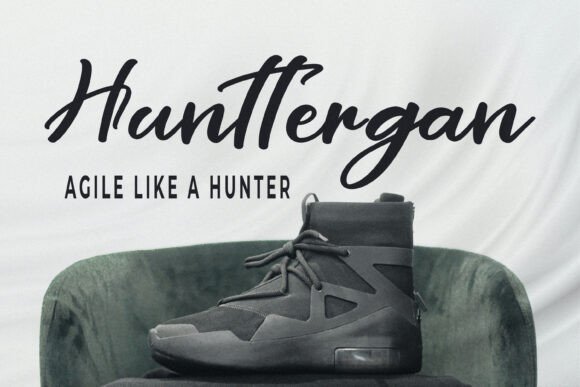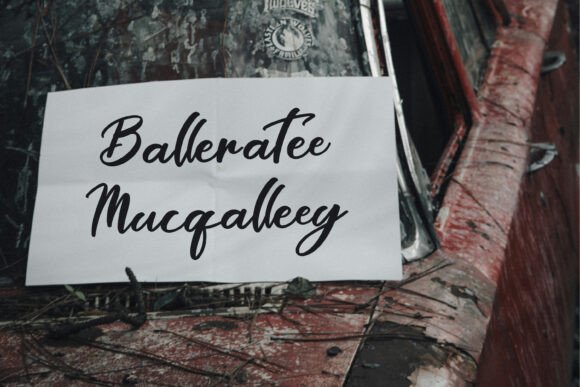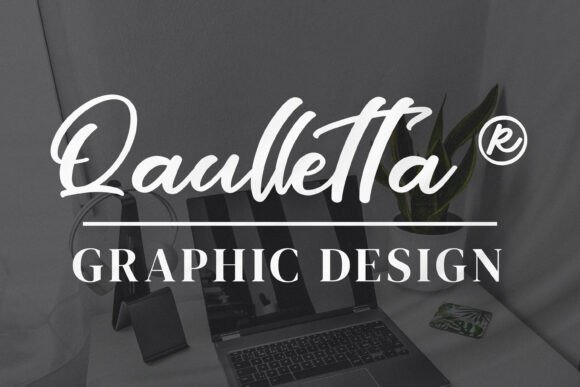
Introduction to Orttega Font
Orttega is a bold and stylish signature font that combines elegance with confidence.
It features smooth curves and strong lines, making it perfect for logos, branding, invitations, and creative designs This font adds a touch of personality and sophistication to any project.
Key Features of Orttega Font
Why Choose Orttega Font?